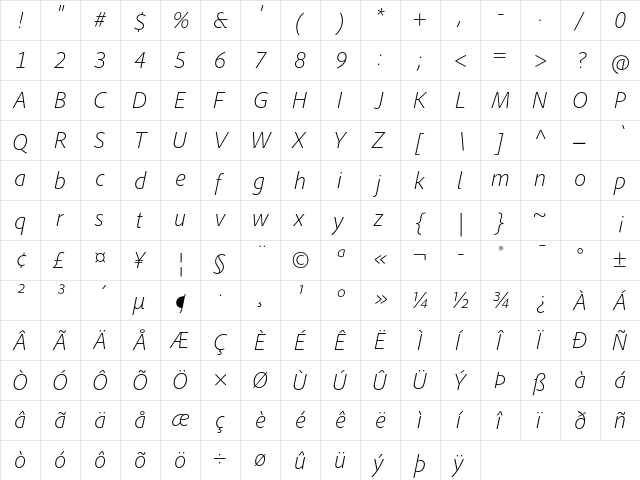
Adobe Clean Light Italic
| Designer | Robert Slimbach |
Design Context for Adobe Clean Light Typeface
Adobe Clean Light offers clean, dependable letterforms without strong stylistic allegiance, making it a practical choice for designers who need flexibility. The slanted form adds forward momentum and visual energy. The delicate stroke weight brings airiness and refinement to layouts.